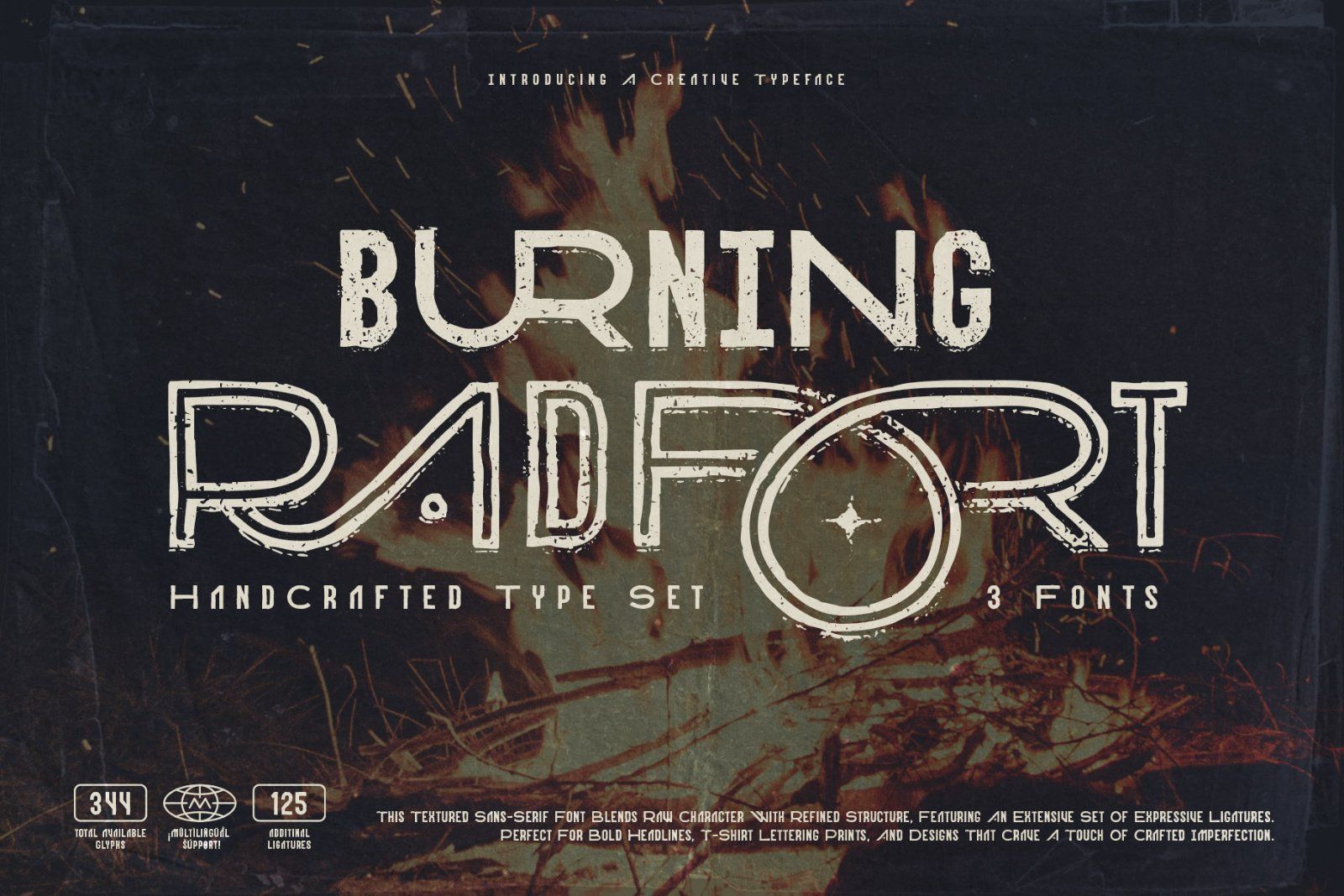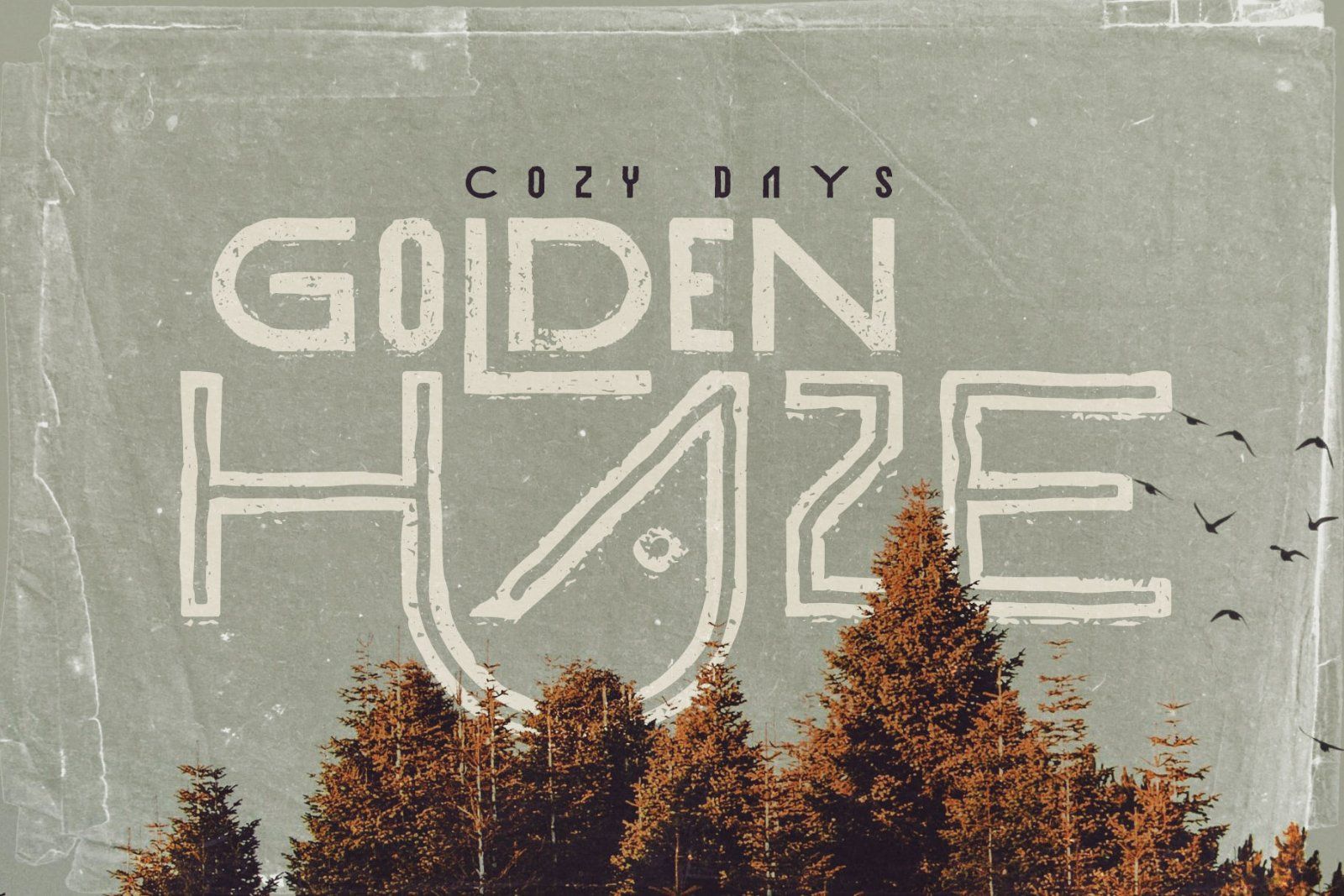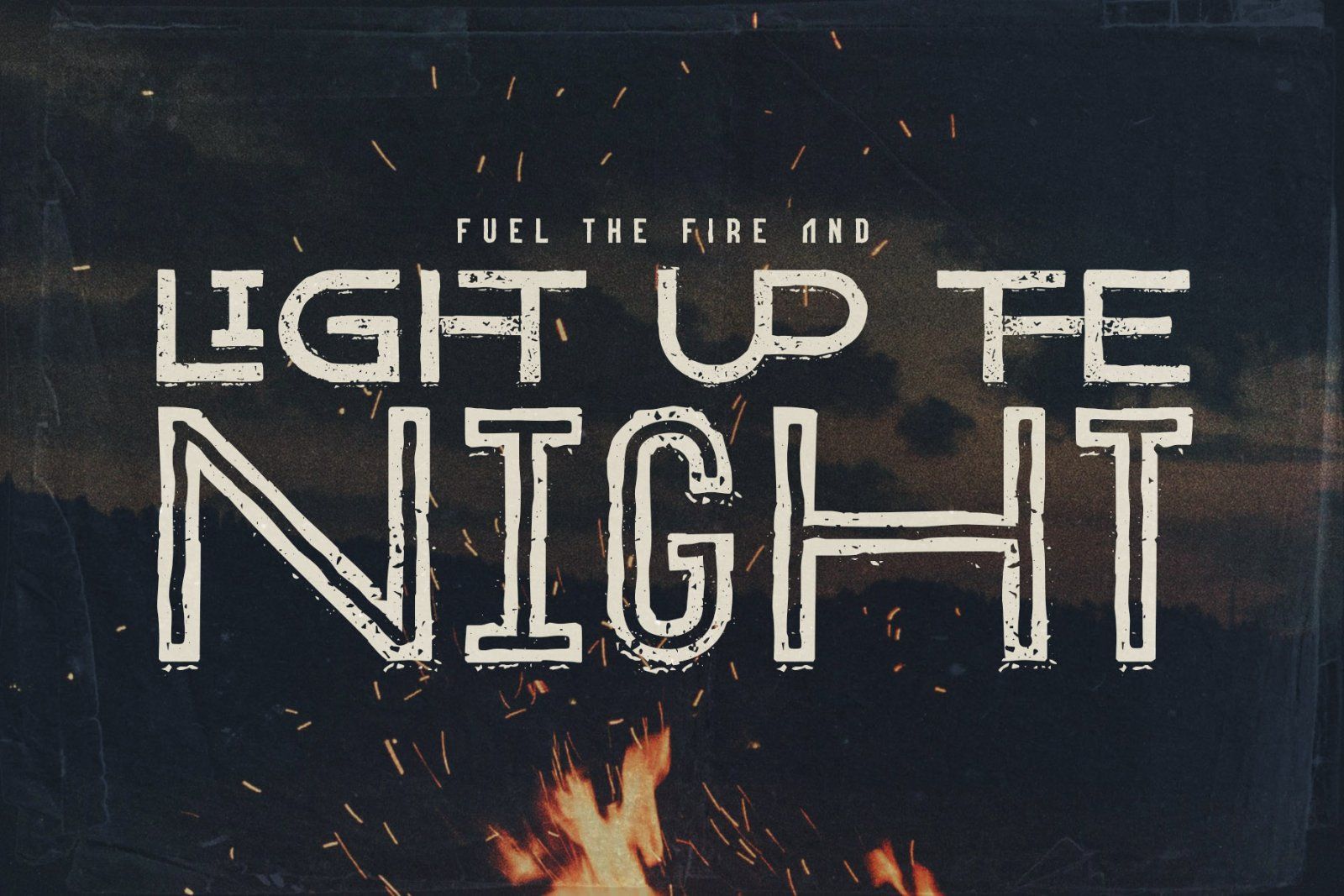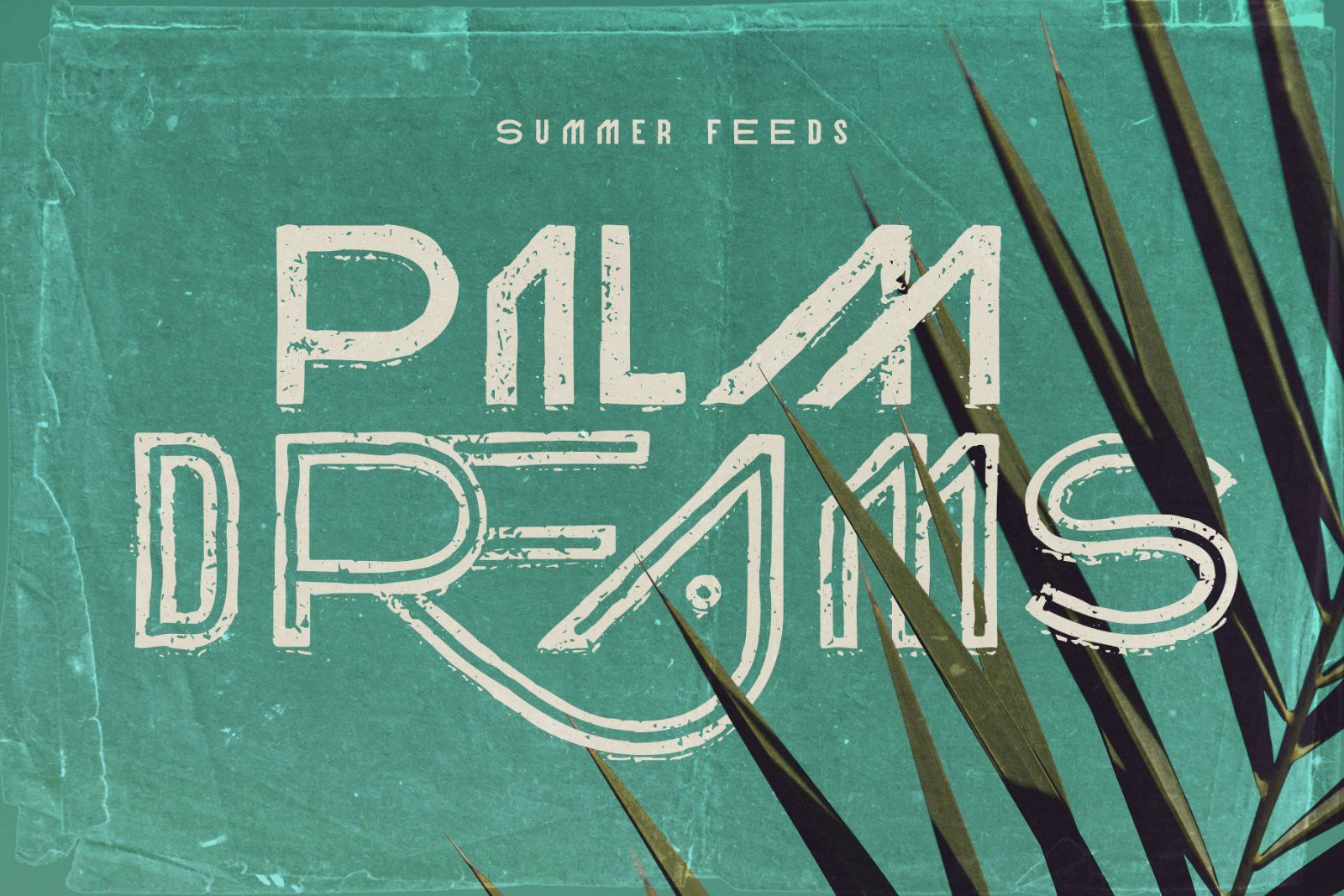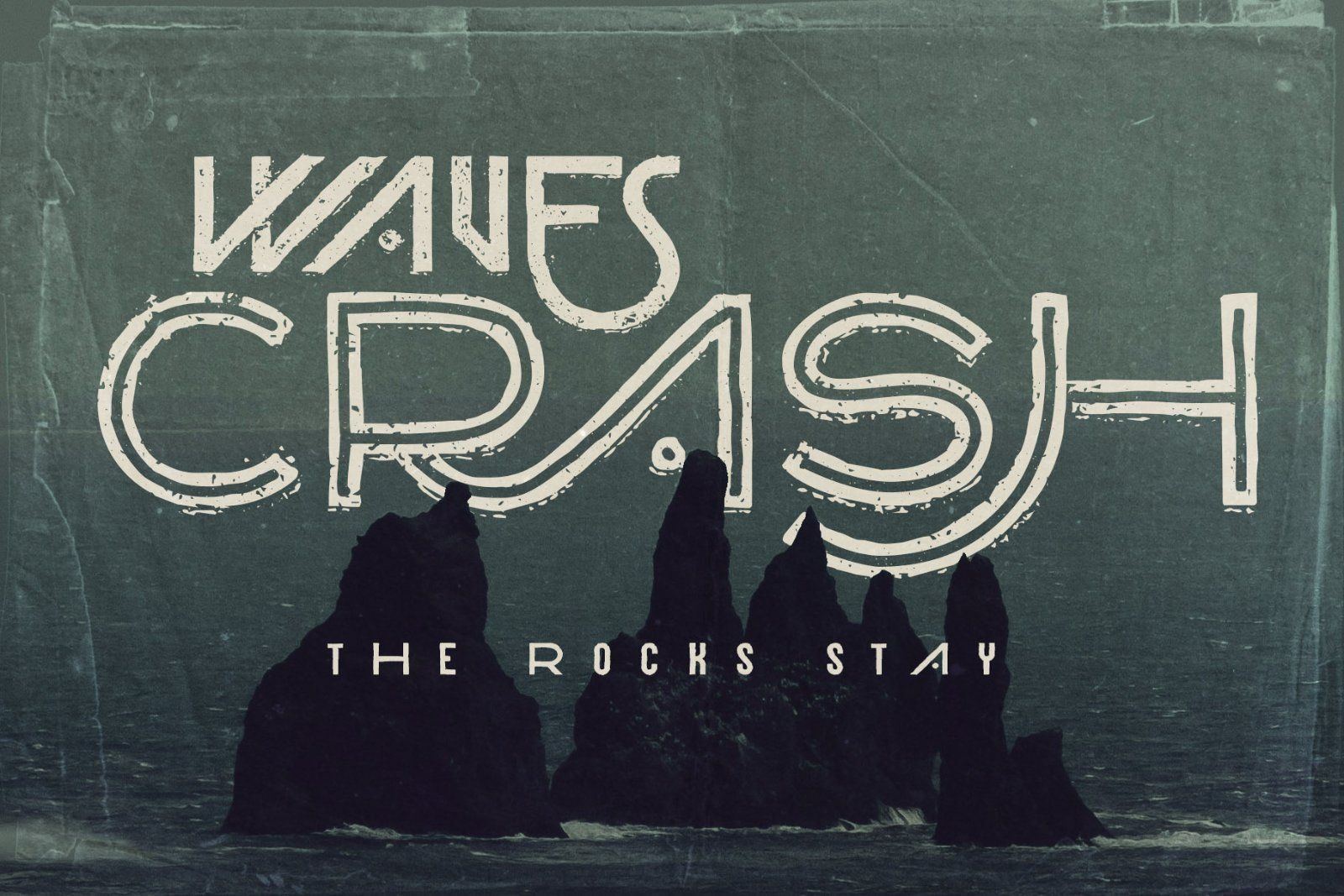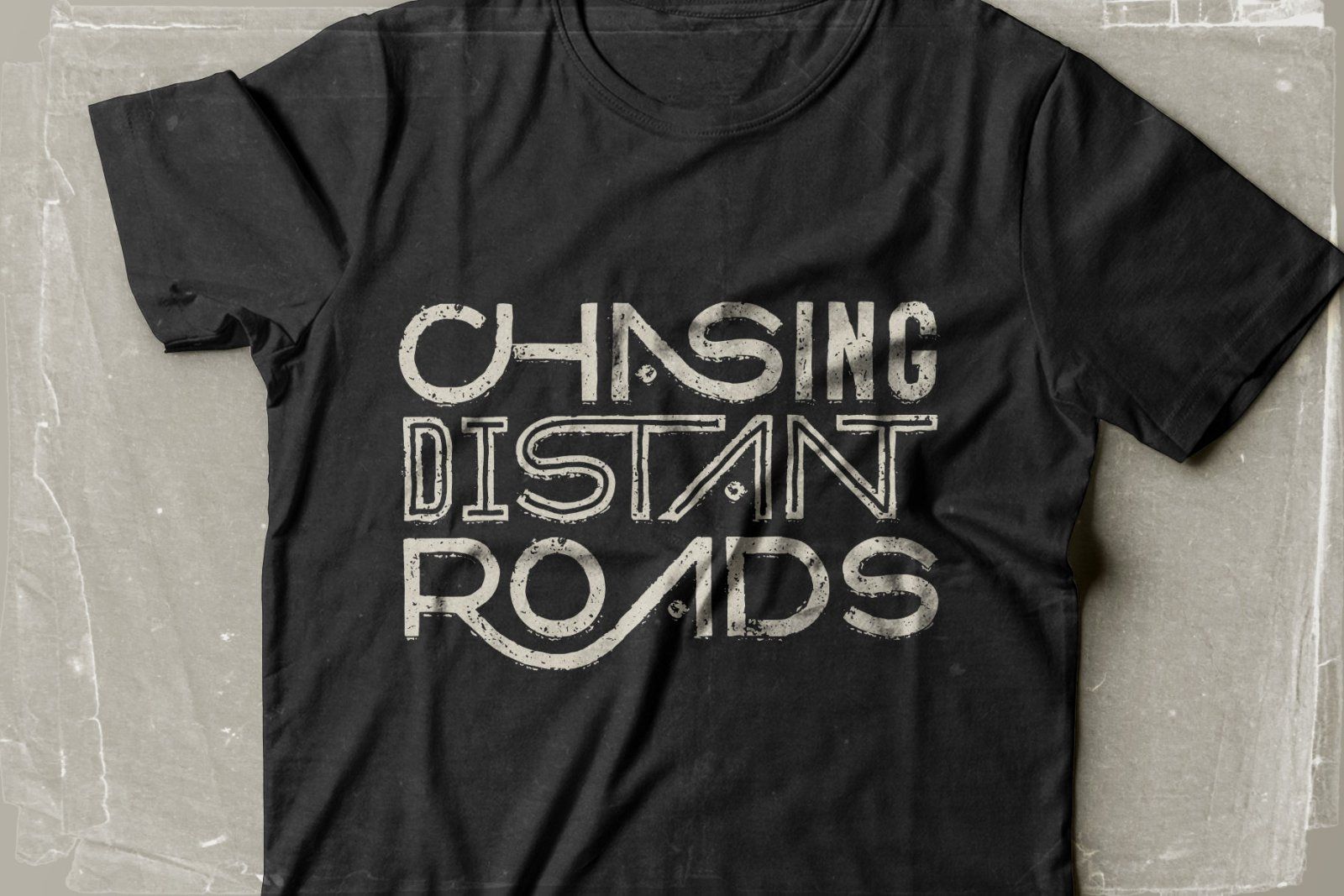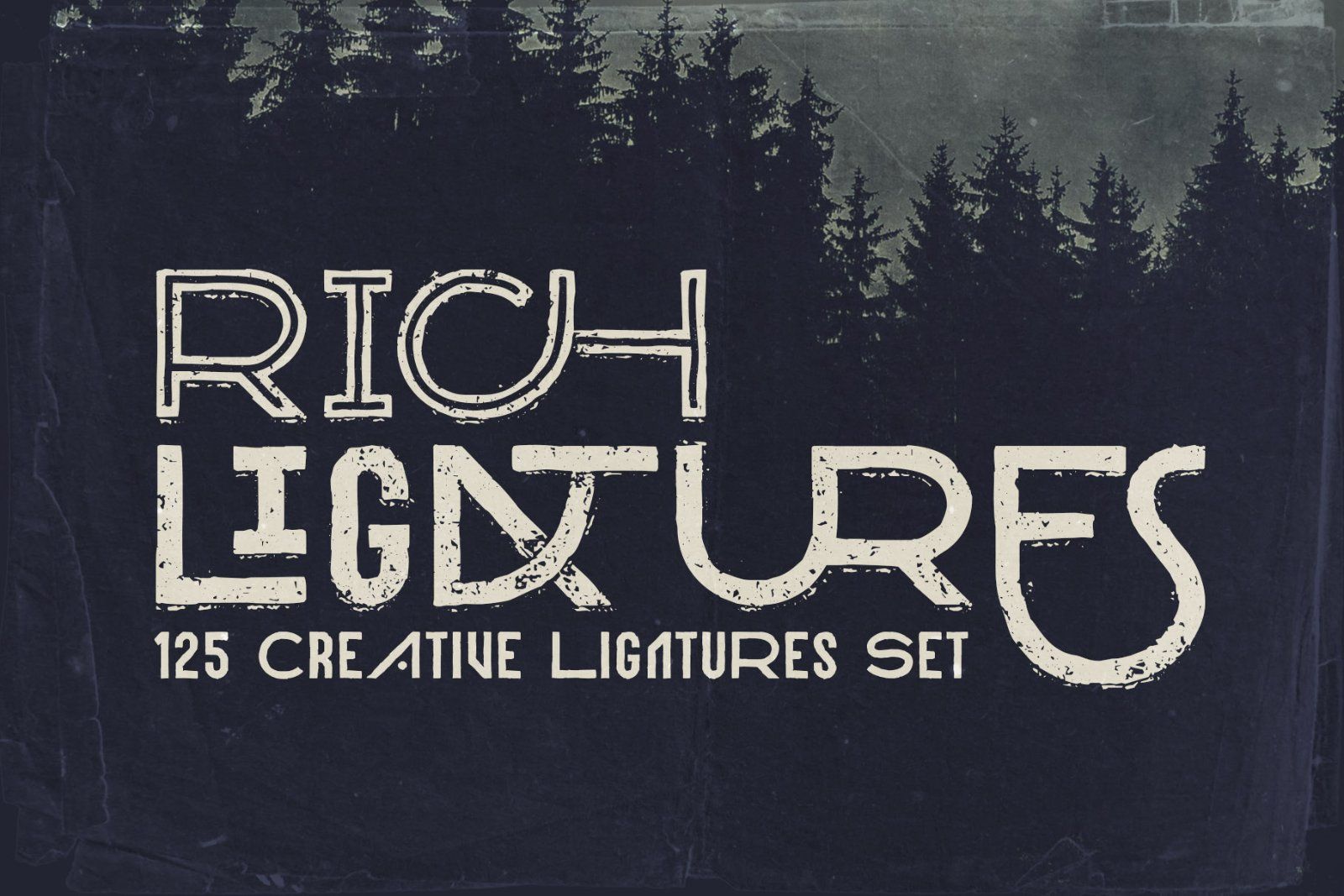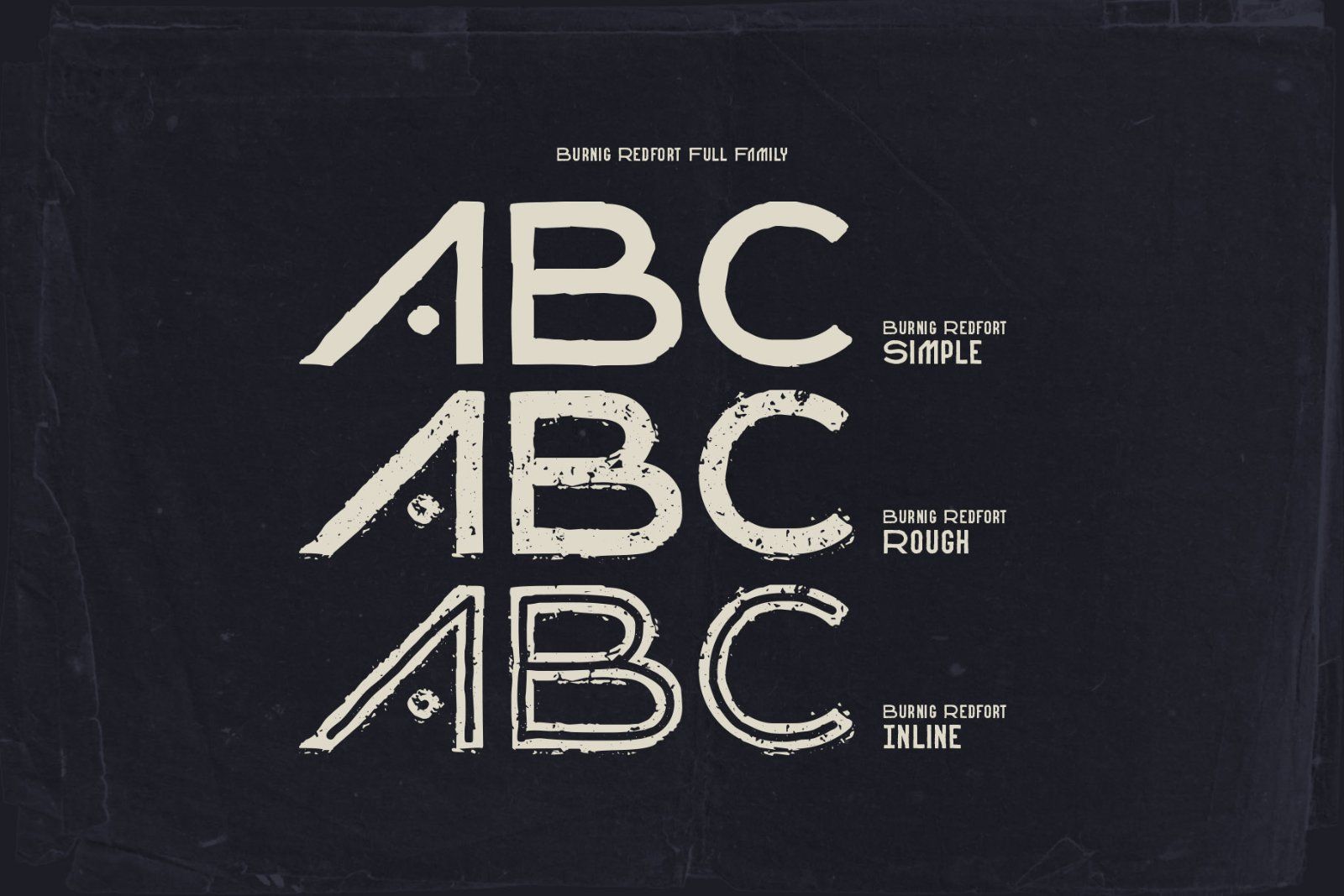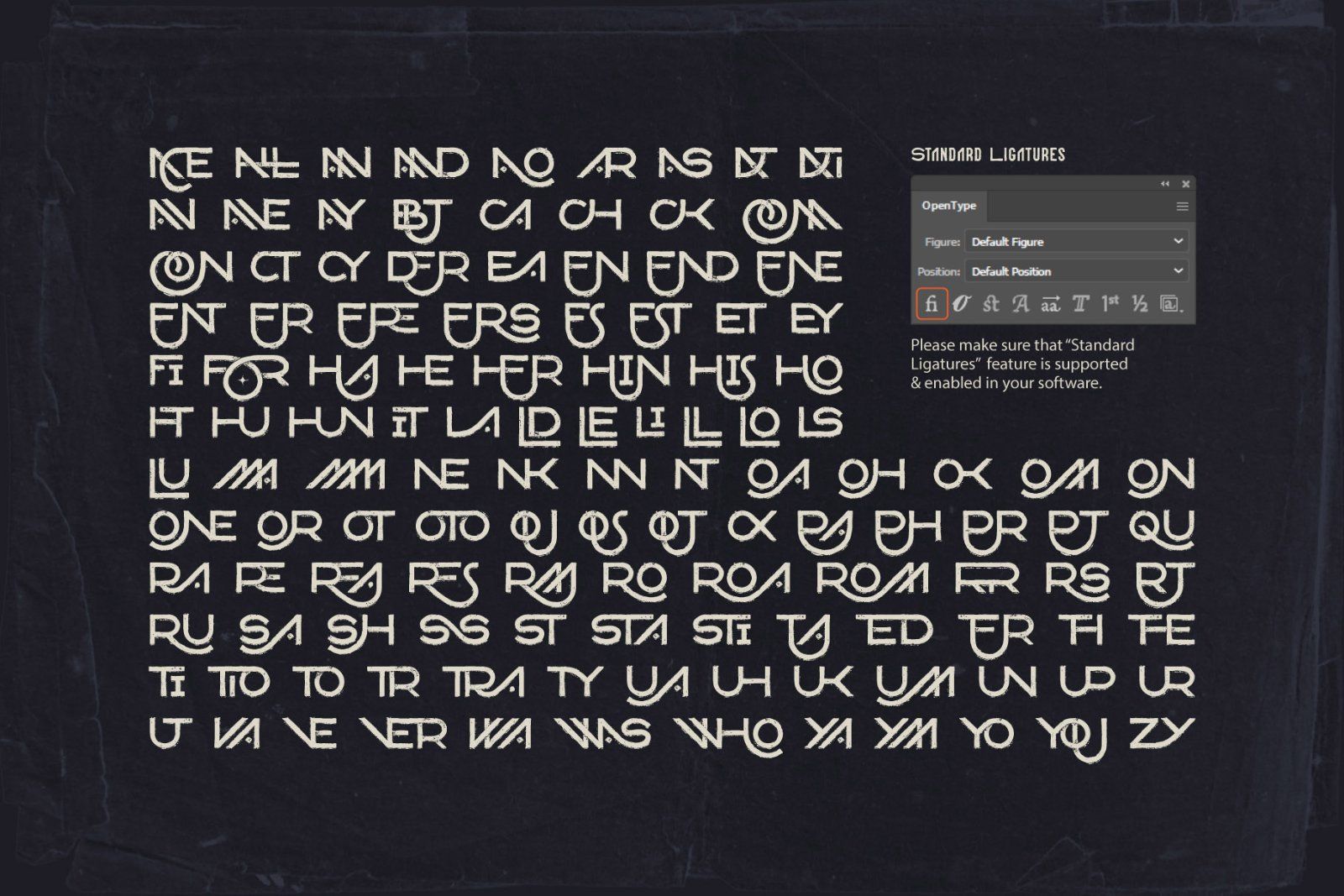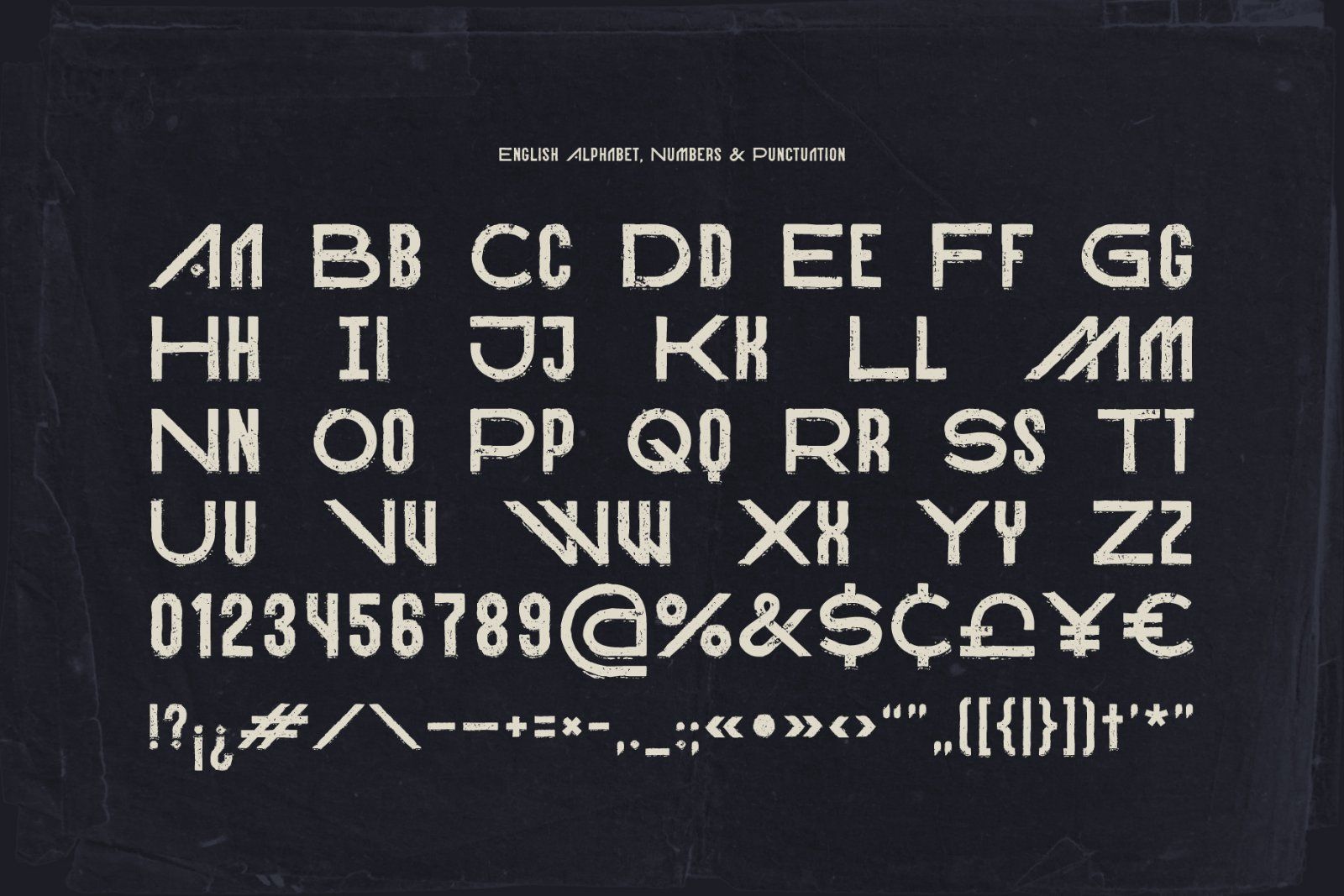
Hi! Introducing a handcrafted font set named Burning Radfort. This textured sans-serif font blends raw character with refined structure, featuring an extensive collection of expressive ligatures. It's perfect for bold headlines, t-shirt prints, and designs that crave a touch of crafted imperfection.
The Burning Radfort family includes three styles: Rough (the base font), Inline (with inner line detailing), and Simple (a cleaner version for smaller text). Each font contains 125 original ligatures (enabled for uppercase letters) and supports multiple languages — check the screenshot to view the full character set!